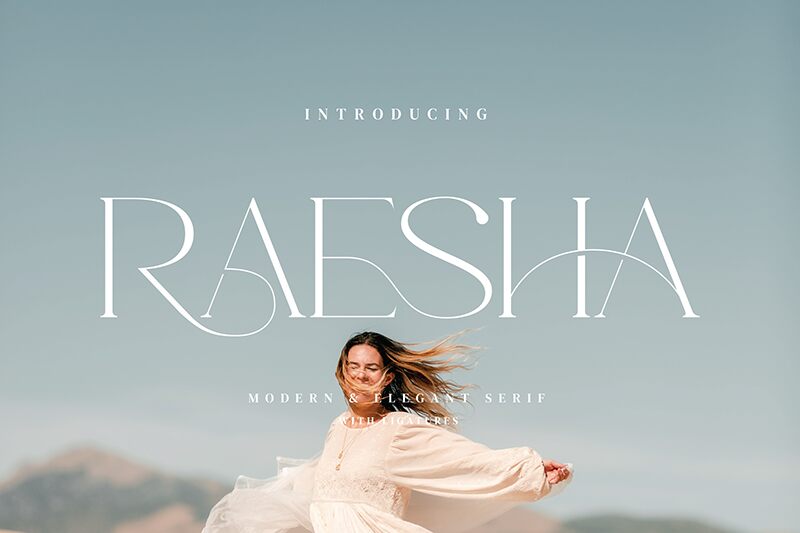
Raesha
Raesha font by Biham Santoso is an elegant light serif typeface with a modern touch. It displays refined proportions, subtle curves, and a sophisticated overall look while its modern elements bring serenity and calmness to the layout. If you’re looking for minimalism with no compromise on beauty, then this one has the potential of delivering the perfect balance.
The free serif font is useful in multiple contexts and art projects; branding, packaging design, book covers, magazines, brochures, labels, logos/visual identity design… It can also be experimented with when posters are at stake or even social media posts.